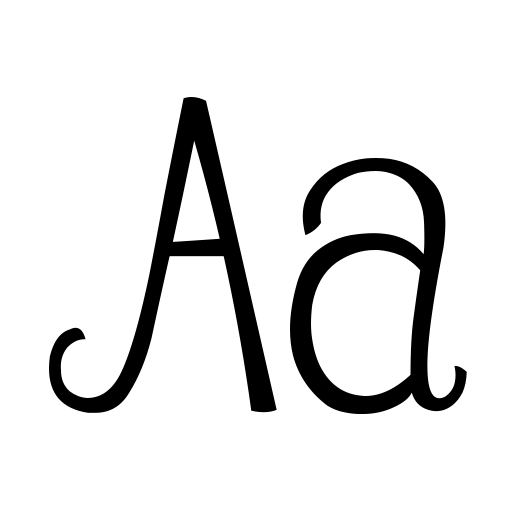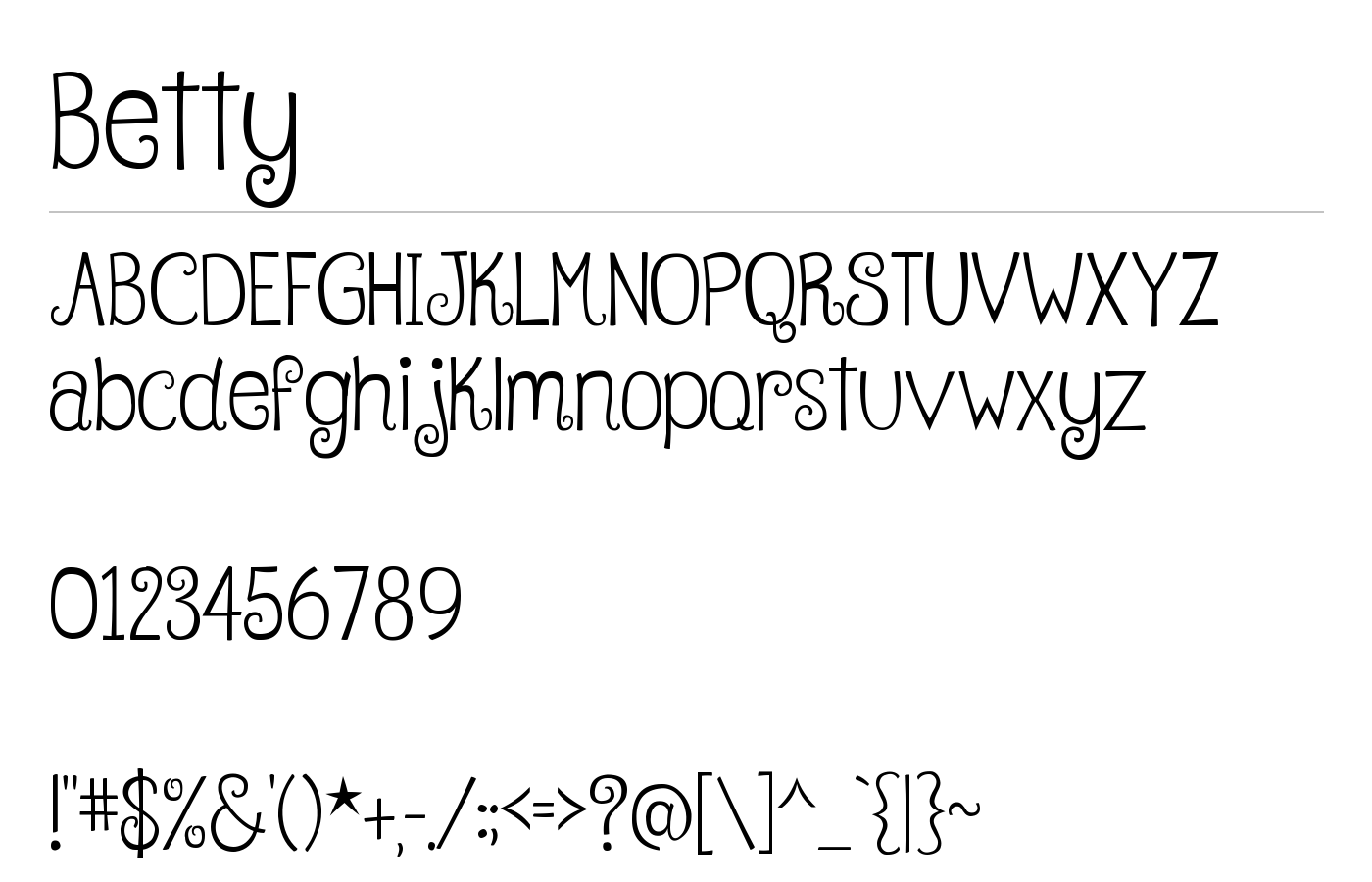
Betty Font is a whimsical and playful sans serif typeface with tall, narrow letterforms and charming curly details that add personality and warmth. Its light stroke weight and quirky swirls create a friendly, informal feel perfect for creative projects, children’s books, and casual branding. This font shines in headlines and decorative uses where a touch of fun and uniqueness is desired.
Betty Font
About Betty Font